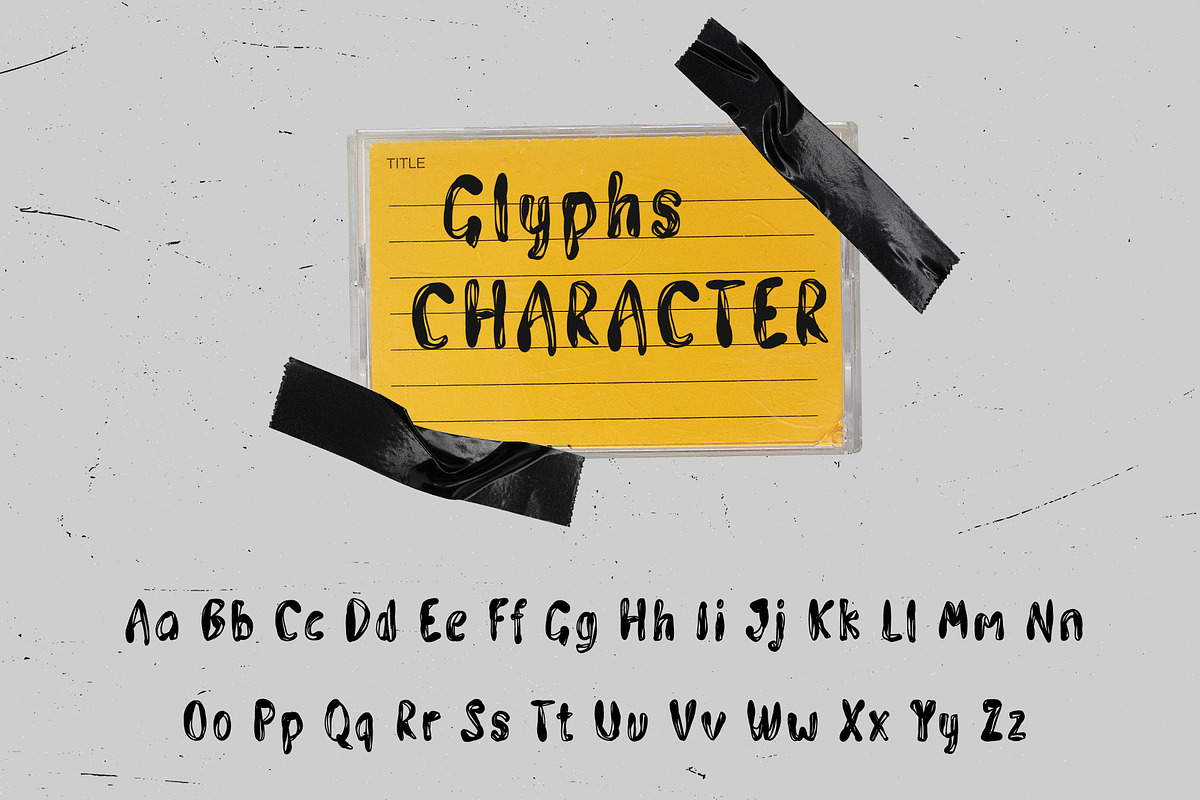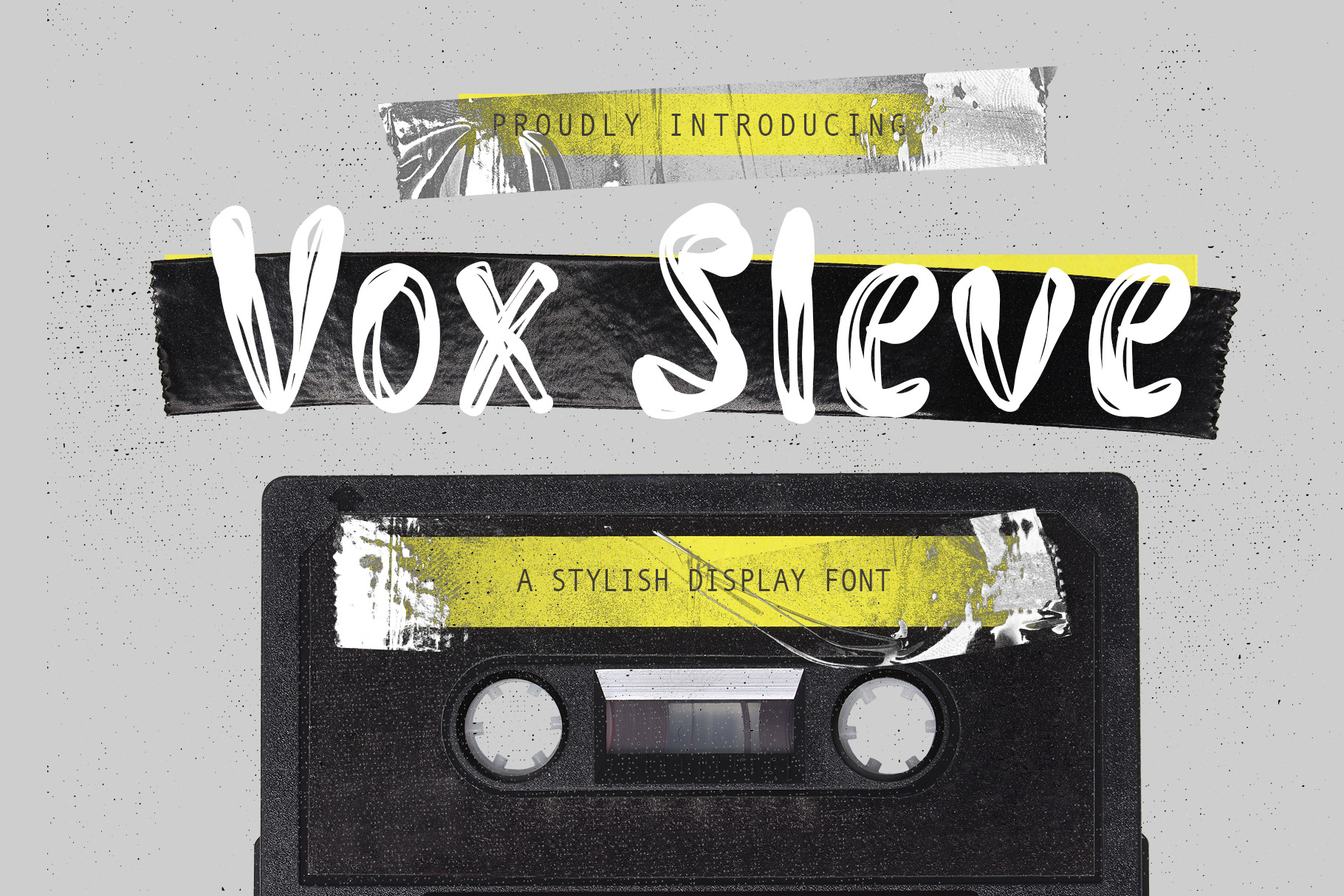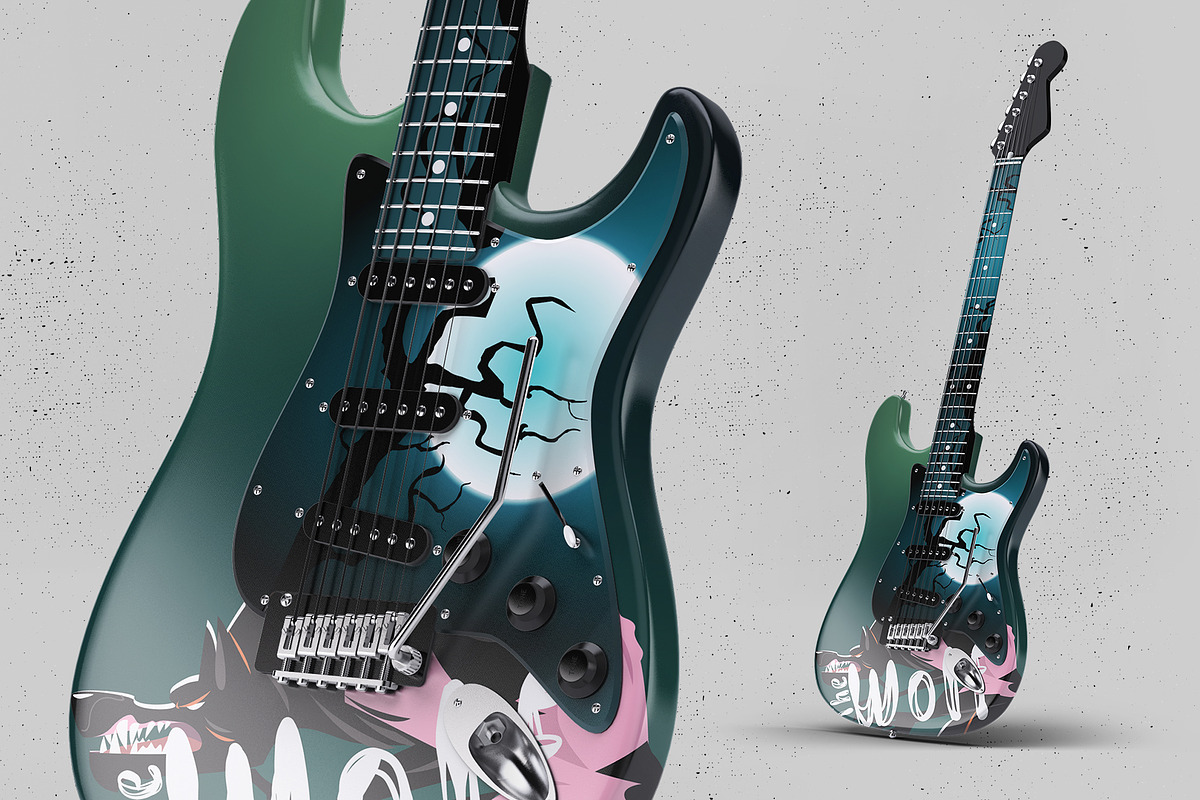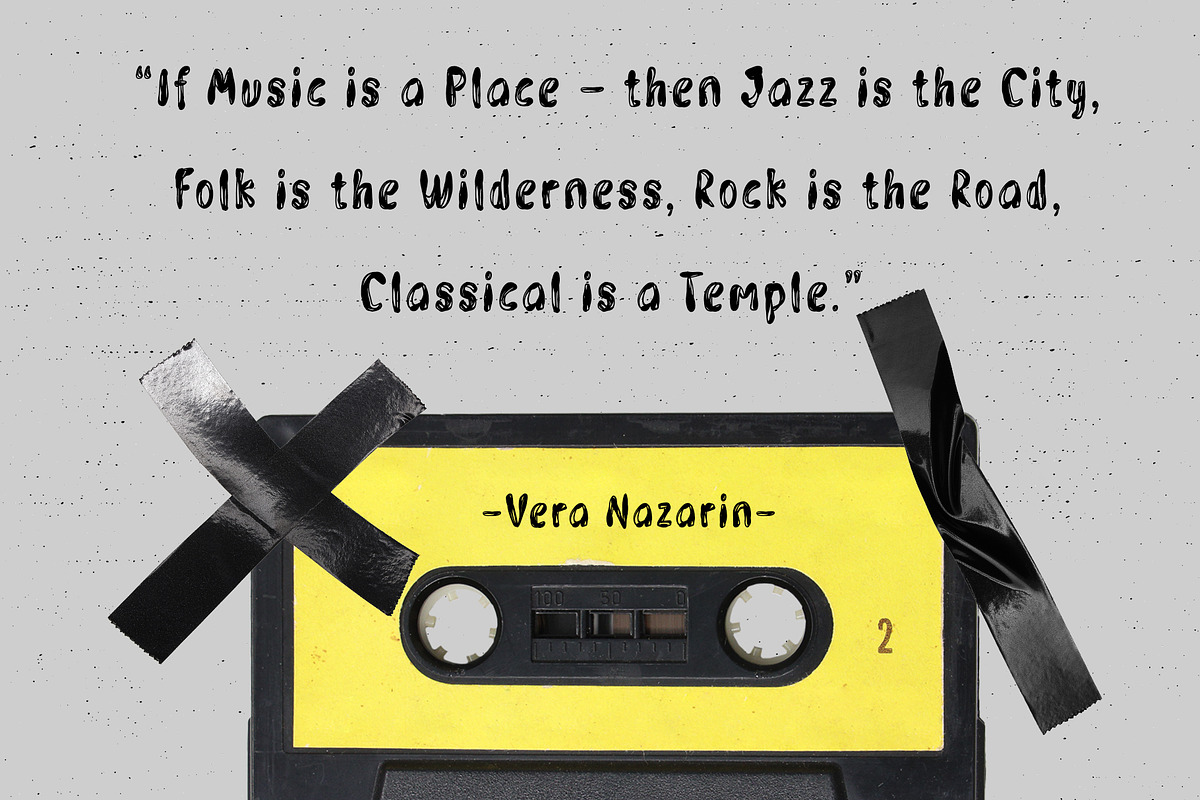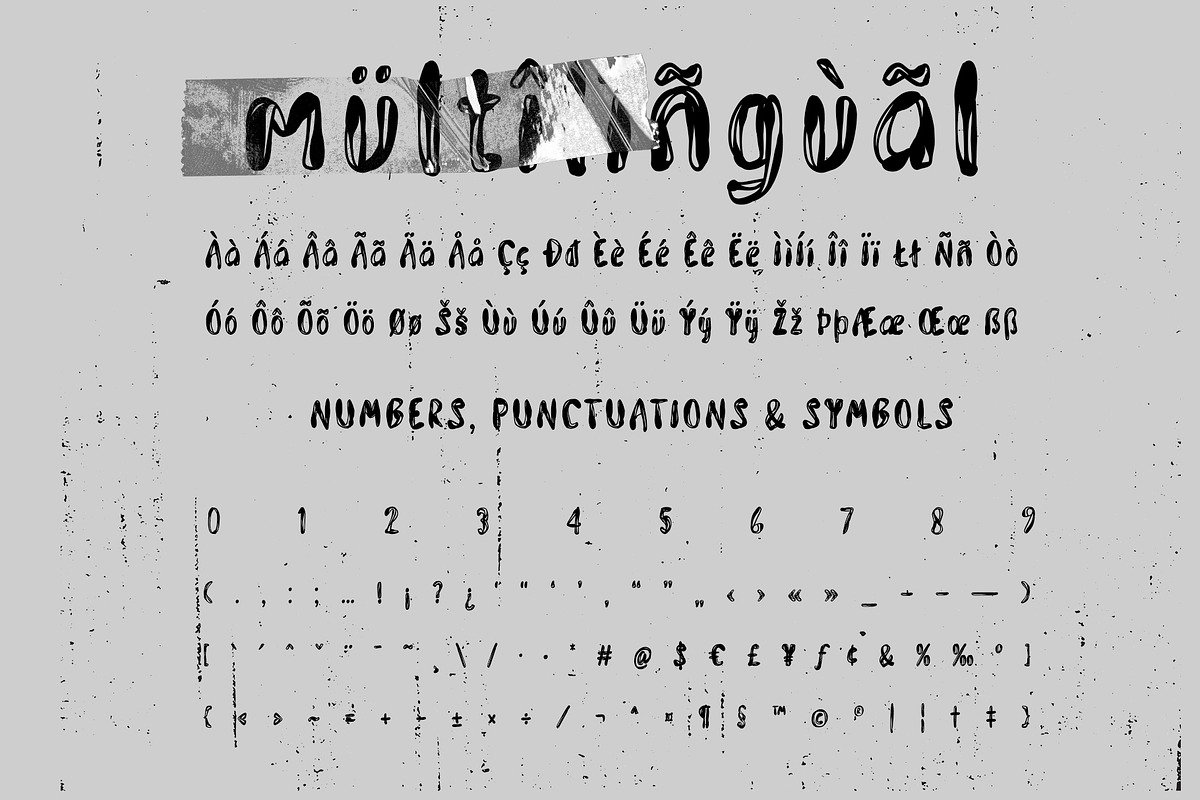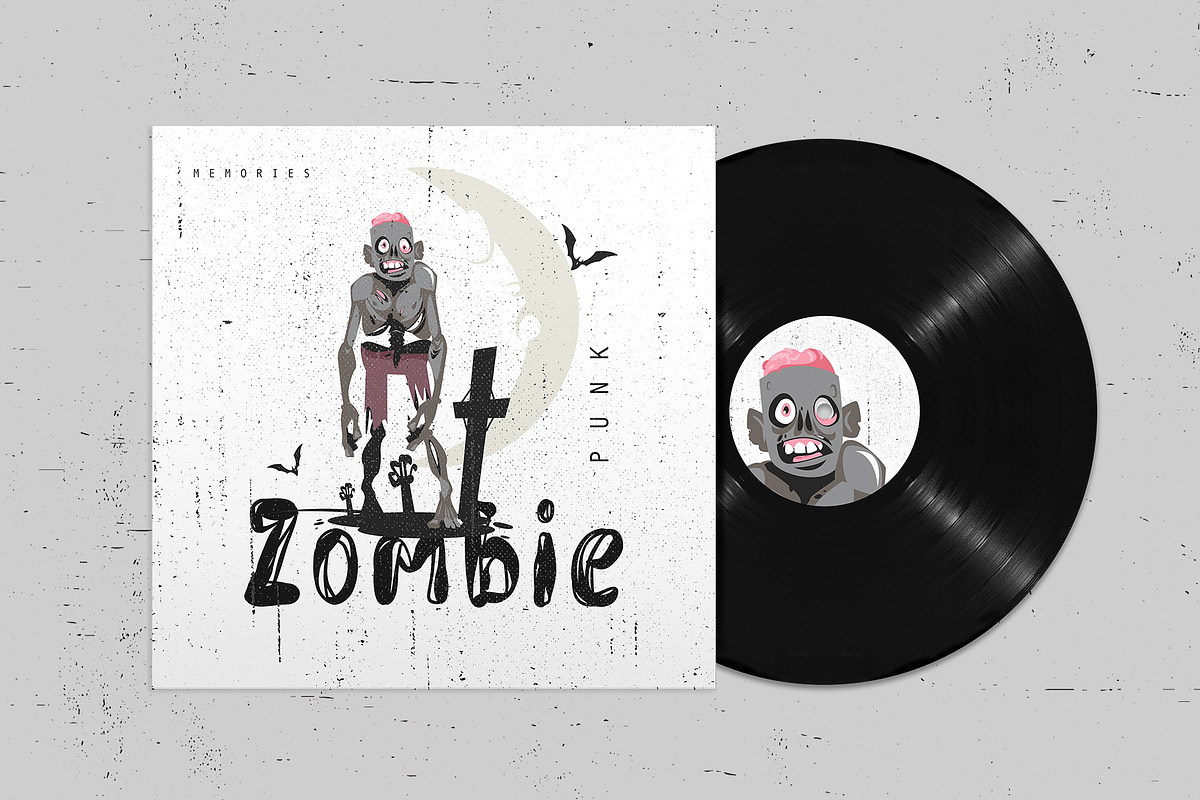
Vox Sleve A Stylish Display Font
Vox Sleve is a modern font that blends vintage touches for a unique and captivating look. Designed with precision, it combines modern elements with a classic vibe to create an alluring style.
The history behind the creation of this font began with our desire to merge two contrasting styles: modern and vintage. We were inspired by the beauty and charm of vintage design that remains popular today. We aimed to create a font that could evoke nostalgia and a classic impression while maintaining the freshness and sharpness of modern design. This font is suitable for various design projects that desire a modern look with a retro vibe, such as logos, branding, posters, and more.
By using the Vox Sleve font in your design projects, you will be able to create a unique and captivating look. The font will give a contemporary impression while radiating the charm and warmth of vintage. The combination of modern elements and vintage touches in Vox Sleve will provide a special ambiance and add a distinct appeal to your designs.